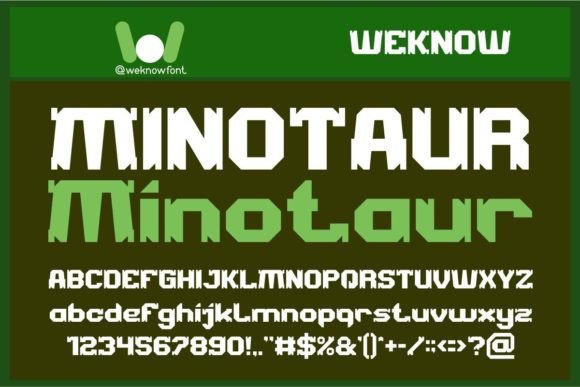
Welcome to the realm of Minotaur, a futuristic display font that echoes the essence of technology, science fiction, and fantasy. Crafted with precision by weknow, this font is an ideal instrument for sculpting visually stunning logos, logotypes, and captivating headlines. Whether you're a designer navigating the vast universe of corporate identity or a trailblazer in the apparel industry, Minotaur is your versatile companion. Its aptitude for weaving magic in posters, music, movies, games, magazines, books, comics, cartoons, and a myriad of creative projects is truly awe-inspiring. Embrace the allure of Minotaur and embark on a visual expedition unlike any other.